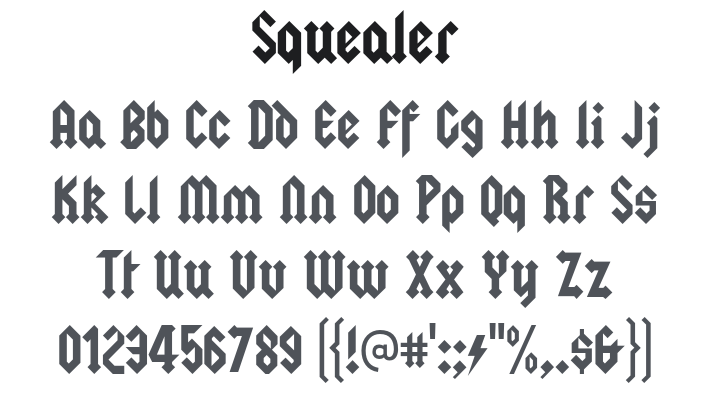
Squealer Font Family
About Squealer
Squealer is a bold blackletter hard rock display typeface with powerful, chiseled letterforms that blend gothic tradition with heavy metal aggression — sharp, angular strokes and dramatic thick-thin contrasts give every word a punishing, stadium-sized presence. An Embossed variant adds a raised, dimensional effect for extra impact. Perfect for metal band logos, rock concert posters, tattoo-inspired designs, horror game titles, and any headline demanding fierce, gothic authority.